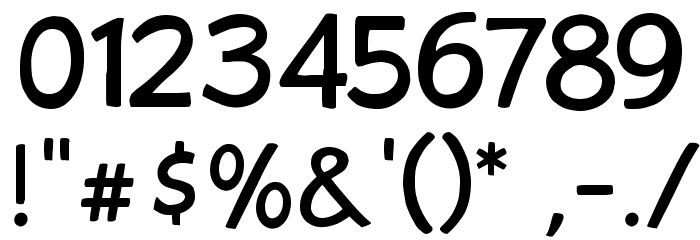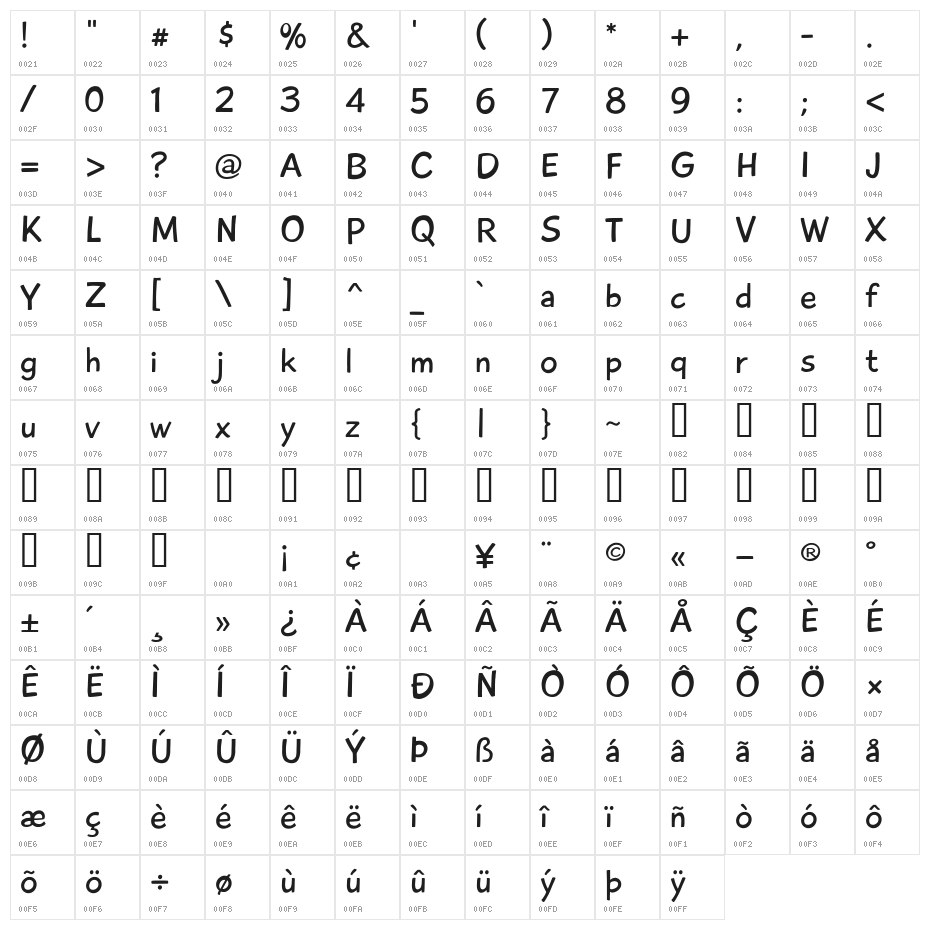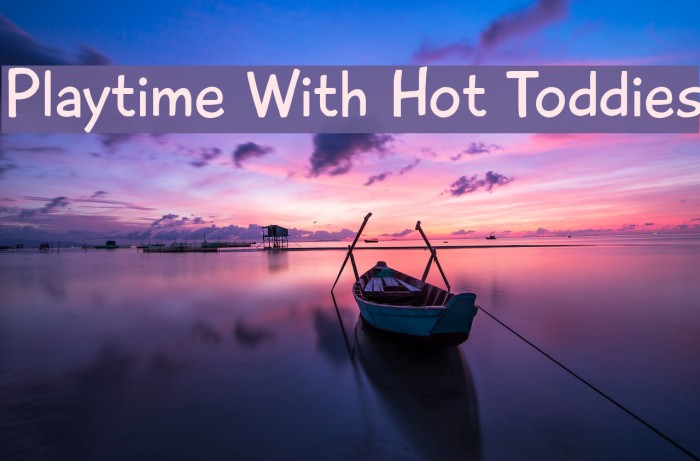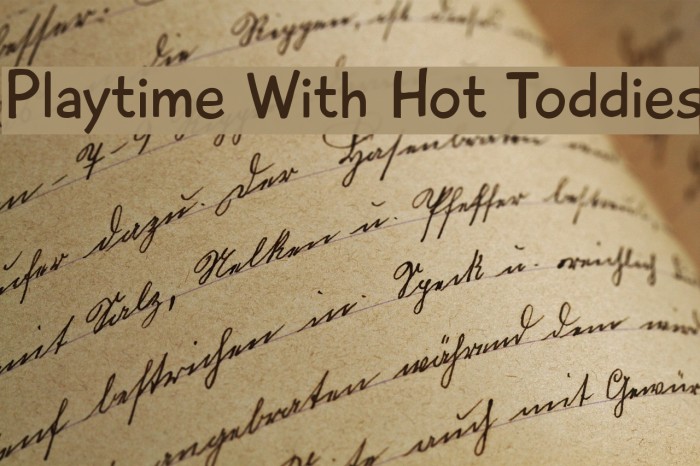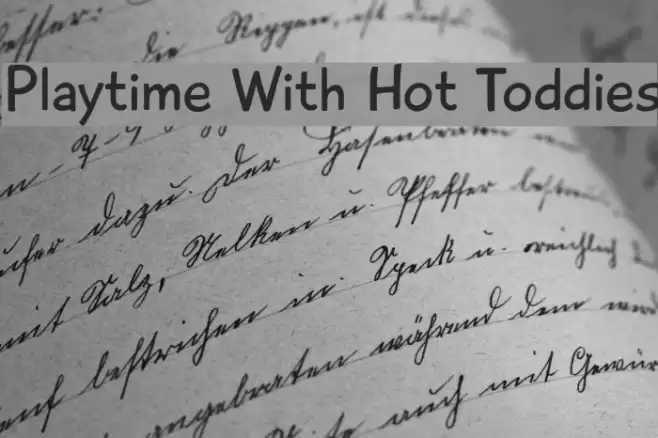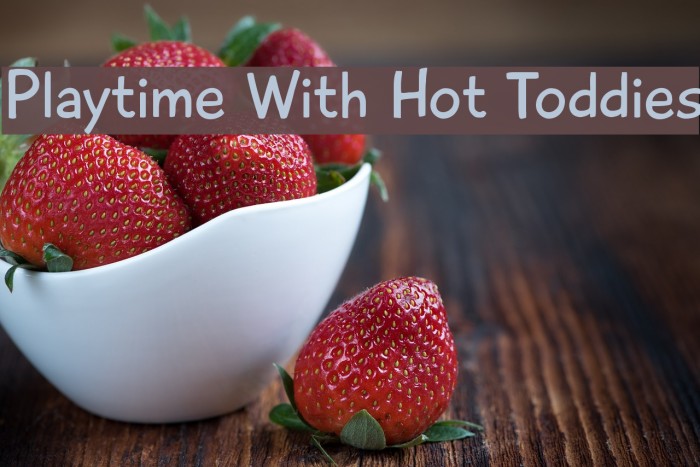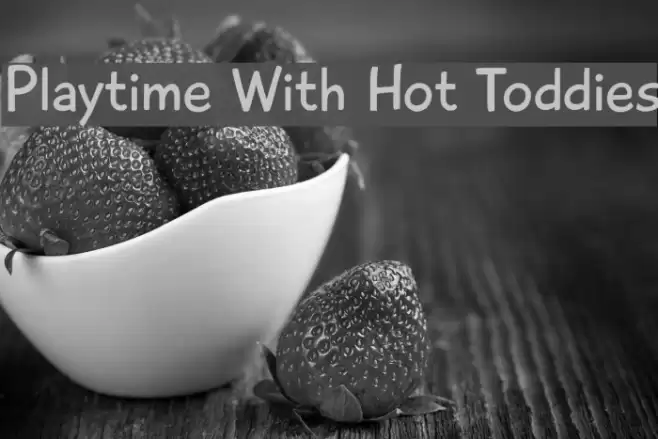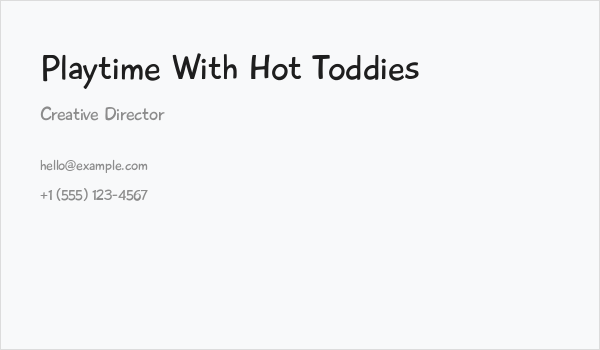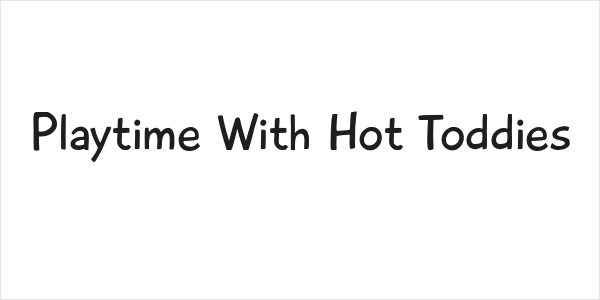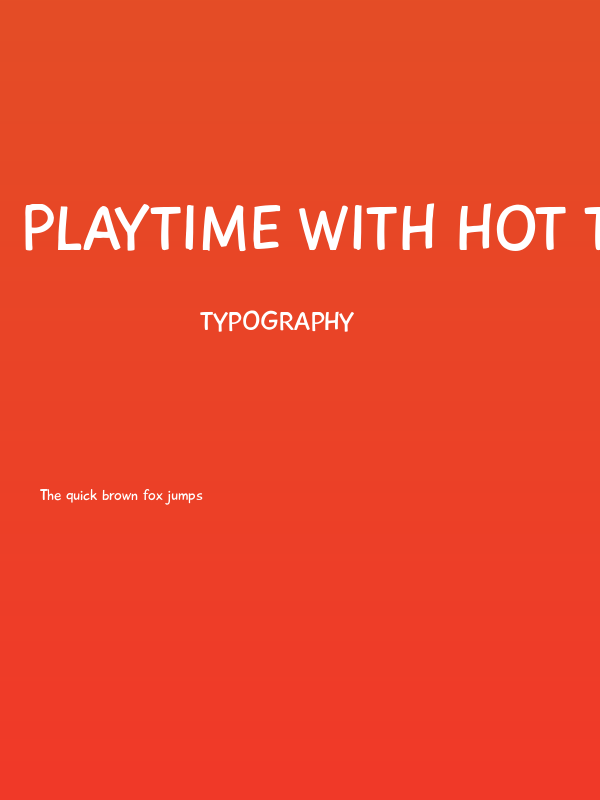
Playtime With Hot Toddies Font
Playtime With Hot Toddies Description
This playful and whimsical font features a handwritten style with rounded edges and a casual, friendly appearance. The characters are slightly irregular, giving it a natural and organic feel. The uppercase letters are bold and prominent, while the lowercase letters maintain a consistent flow with a touch of quirkiness. The numerals are clear and easy to read, matching the overall playful theme. Special characters are included, adding versatility for various design needs. This font is perfect for projects that require a fun and approachable aesthetic.
| Use Case | Headlines, Logos, Casual Text |
| Proposed Projects | Ideal for children's books, playful branding, greeting cards, and casual invitations. |